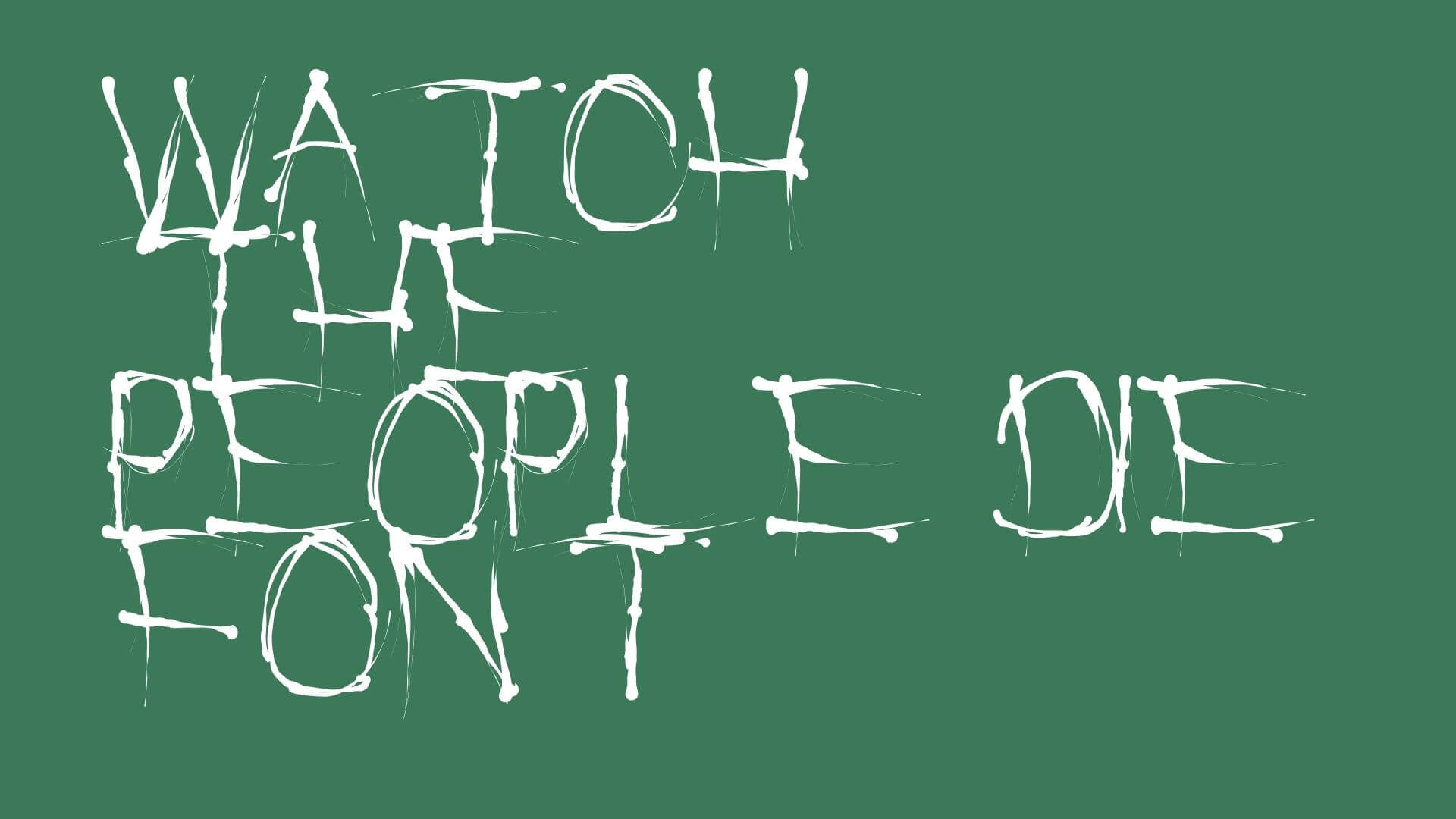
Watch People Die is a fancy-looking typeface that is famous for its usage inside different horror-looking projects known as Watch People Die Font the styling of this typeface has been done by Chris Vile.
Watch People Die Font Family
NameWatch People Die Font
DesignerChris Vile